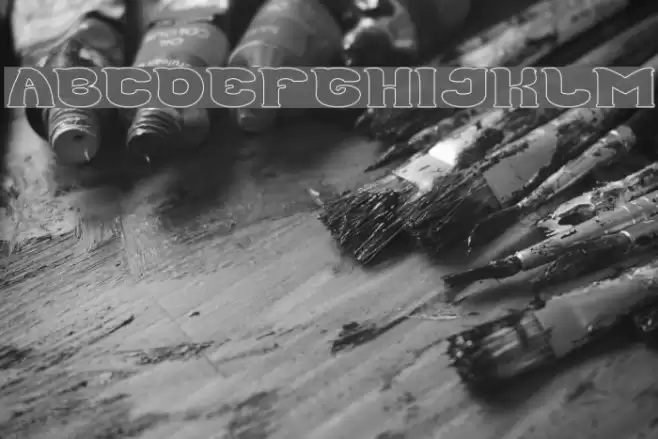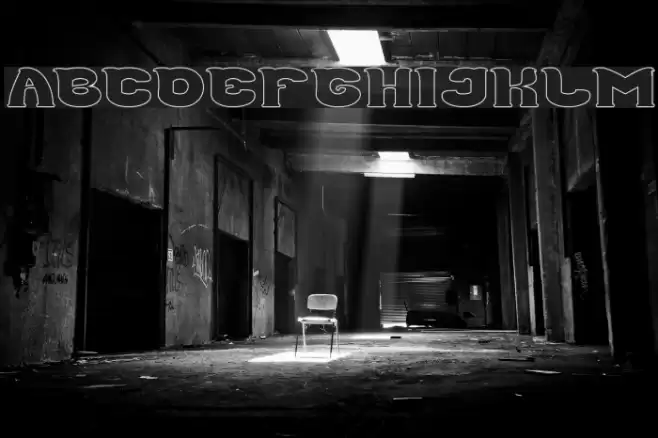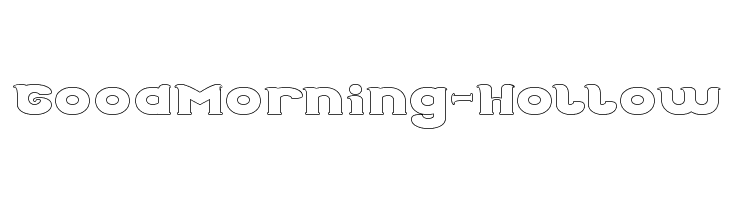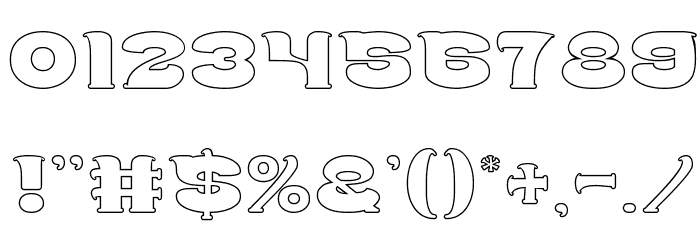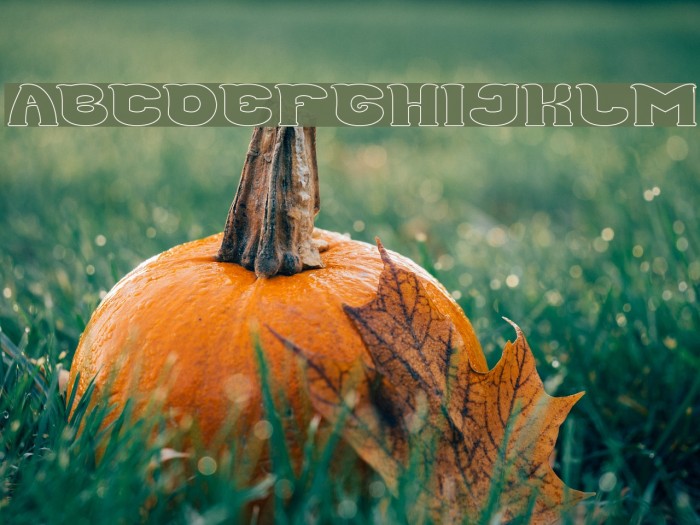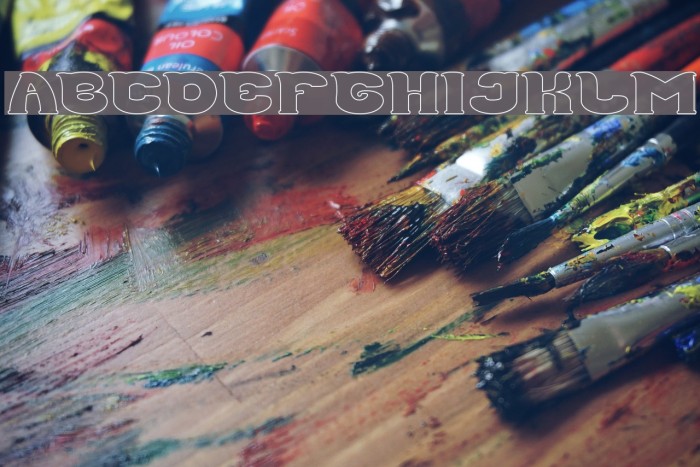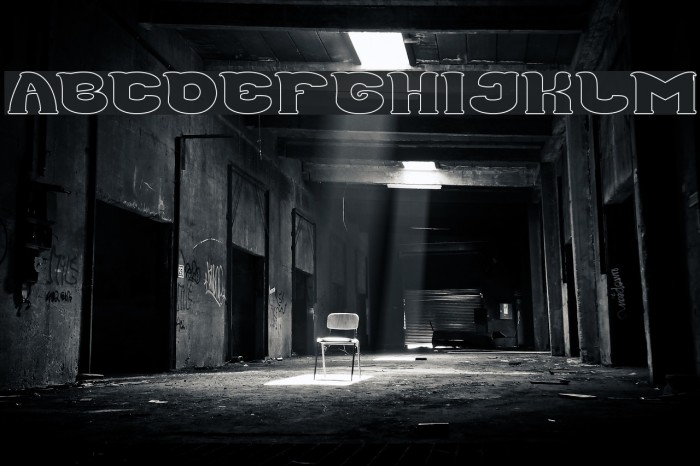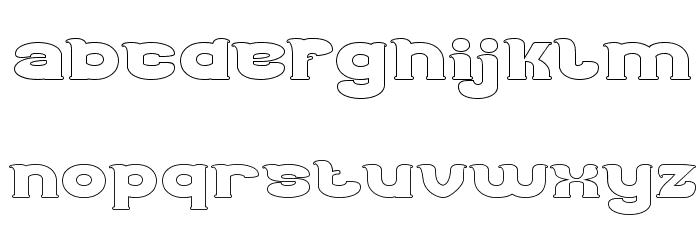
Good Morning-Hollow Font
Good Morning-Hollow Description
This font features a playful and bold hollow design, characterized by its thick outlines and rounded edges. The letters have a consistent width and a slightly whimsical appearance, making them stand out with their unique style. The uppercase and lowercase letters maintain a uniform look, while the numbers and special characters complement the overall aesthetic. The hollow nature of the font gives it a light and airy feel, suitable for creative and fun projects.
A playful, bold hollow font with thick outlines and rounded edges from Uncategorized fonts.
- Proposed Projects: Ideal for children's books, playful posters, greeting cards, and creative branding.
- Overall Style: Playful